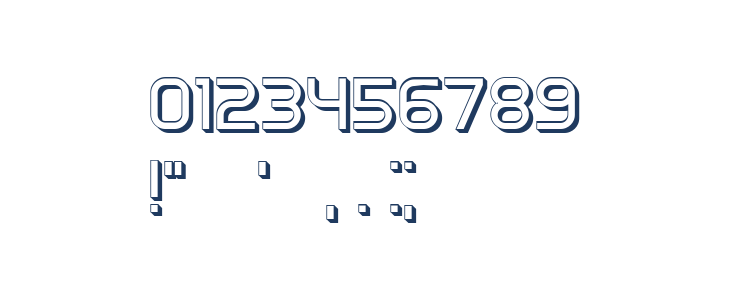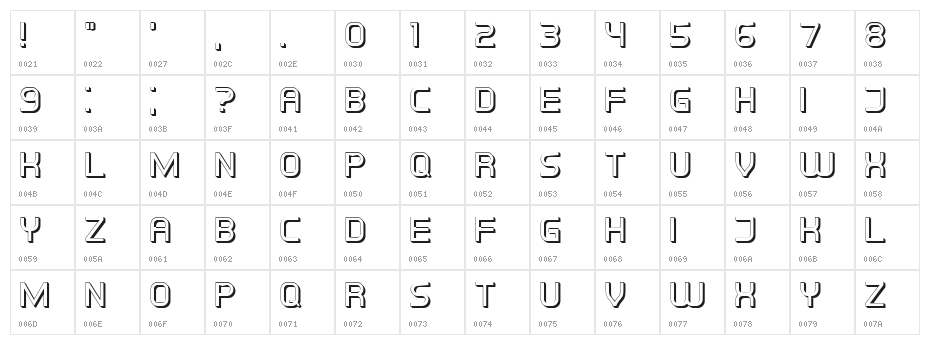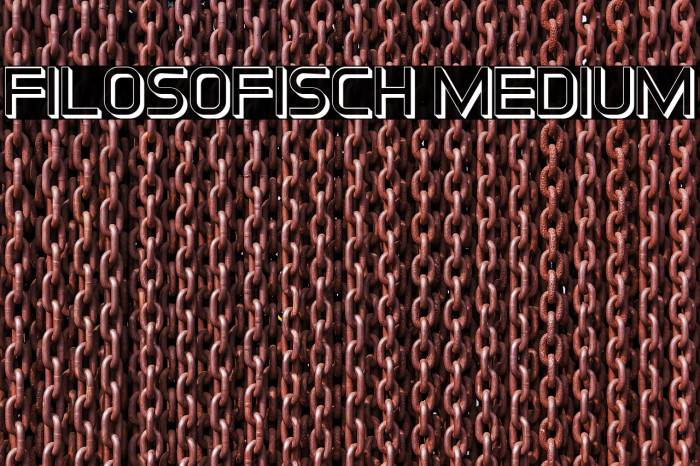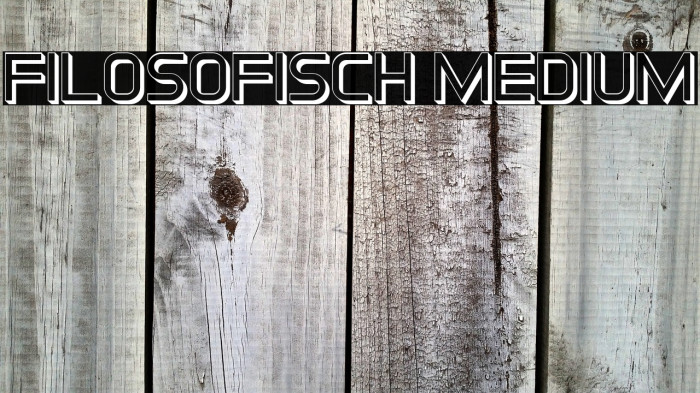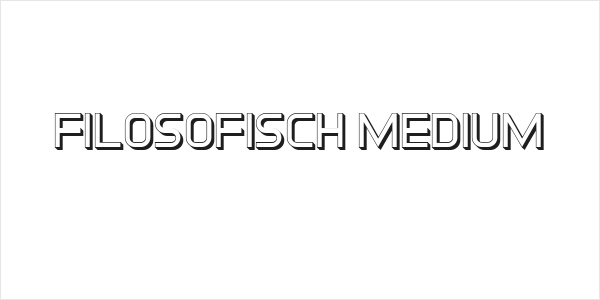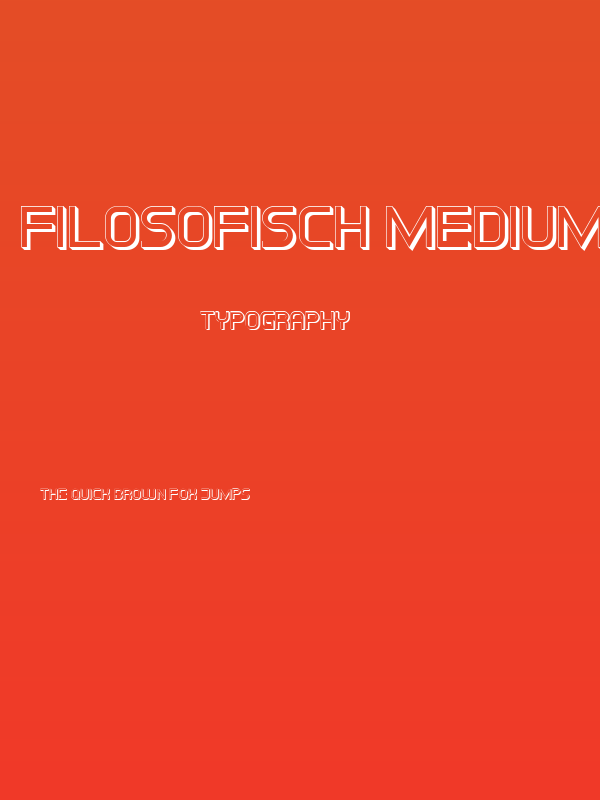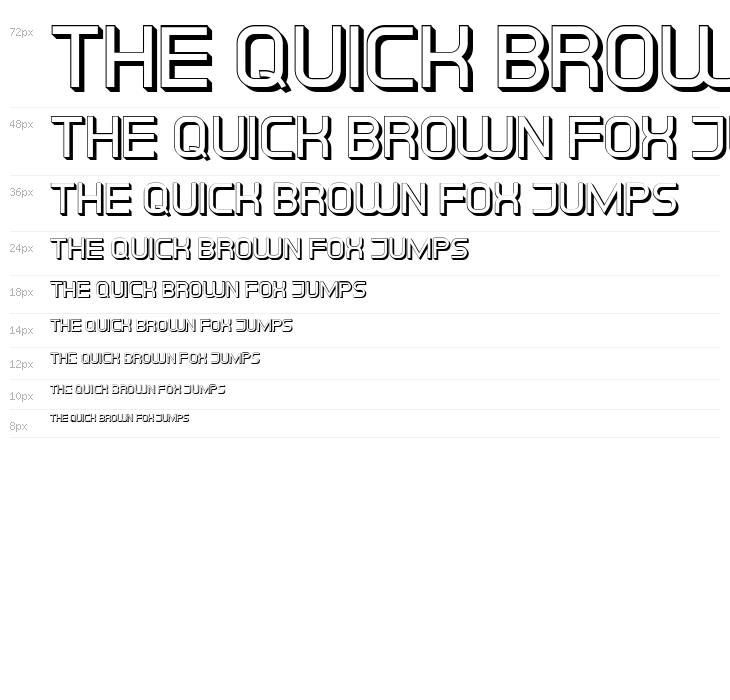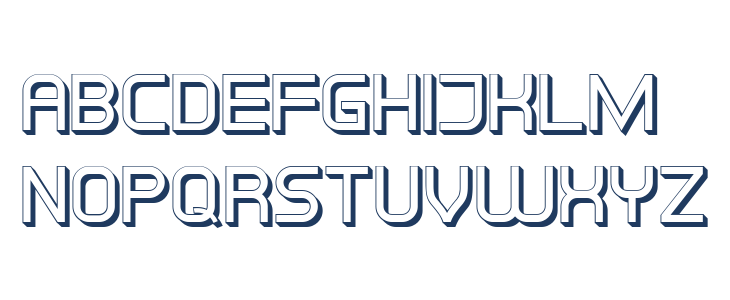
Filosofisch Medium Font
Filosofisch Medium Description
This font features a bold, geometric design with a distinct three-dimensional effect. Each character is outlined with a shadow, giving it a layered appearance that stands out. The uppercase and lowercase letters maintain a consistent style, with clean lines and sharp angles. The numerals and special characters follow the same design principles, ensuring uniformity across all glyphs. This font is visually striking and commands attention, making it ideal for projects that require a modern and impactful look.